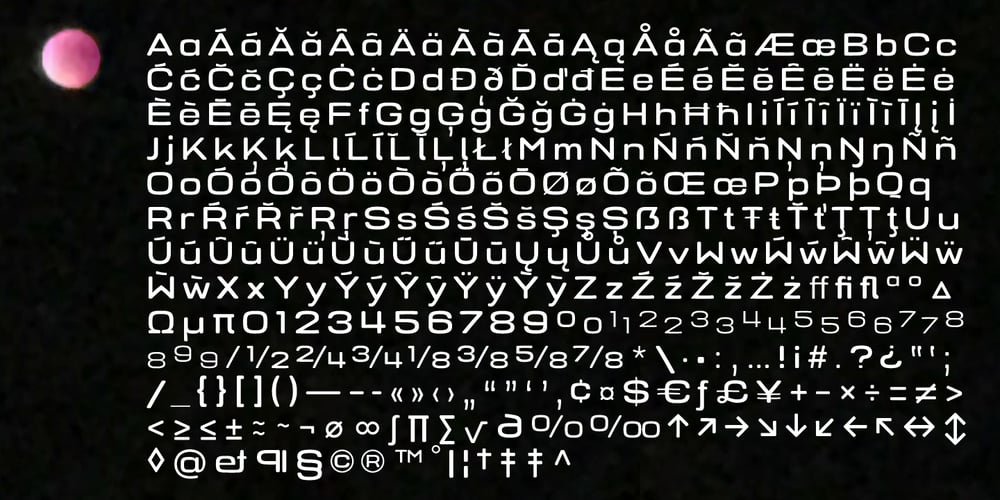
Phoebe Rounded Font Family was designed by Gert Wiescher and published by Wiescher Design. Phoebe Rounded contains 14 styles and family package options. Phoebe-rounded is the rounded version of my experimental font Phoebe. Phoebe comes in 7 weights and all of them are quite useful. The Phoebe fonts have ligatures, old style figures, tabular figures, fractions, all the necessary currency symbols, arrows and all the accentuated letters you need in the western world. Everything works well in outer space and neighbouring galaxies as well. Just look at the font and enjoy your trip to Phoebe.